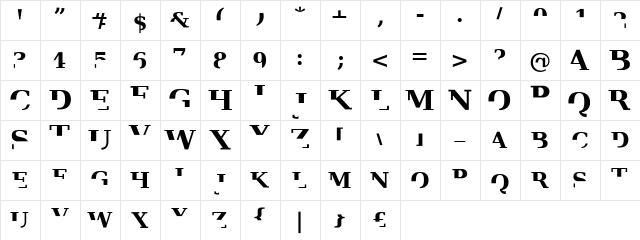
Veru Serif Regular
Design Context for Veru Serif Typeface
Veru Serif brings classic typographic sensibility to the table — its serifs and measured letterforms reflect centuries of print heritage.
Pro Tip: Use Veru Serif for editorial body copy and considered headline work. Pair with a neutral sans for UI elements or captions to create a classic hierarchy.